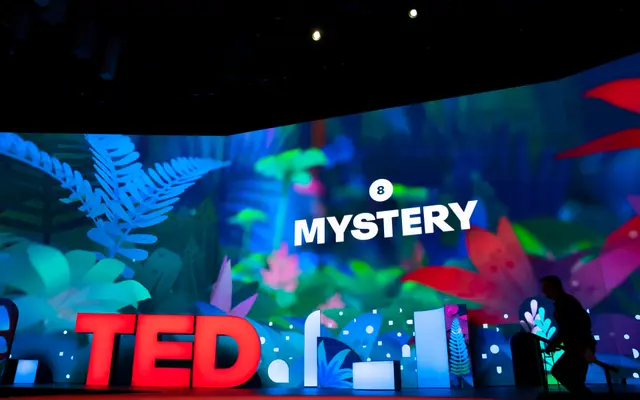
A single-weight display typeface from Polytype with OpenType features, designed for expressive headline use.
Spoof is a display typeface offered in a single Regular weight, with OpenType feature support visible in the specimen. The page content is sparse, but its placement alongside other characterful Polytype releases suggests a similarly distinctive, personality-driven design. Suited to editorial headlines and branding where a strong typographic voice is wanted.
Listed under display-oriented typefaces at Polytype with a single Regular weight and minimal structural detail, suggesting a decorative or novelty display face rather than a text workhorse.